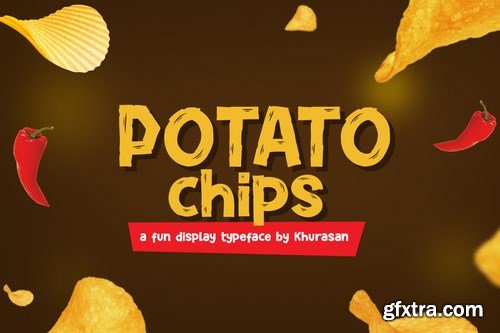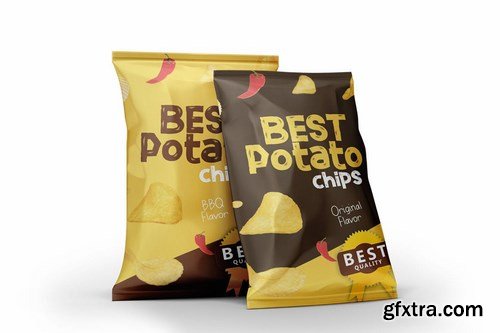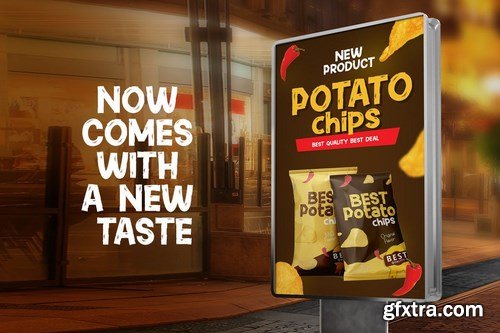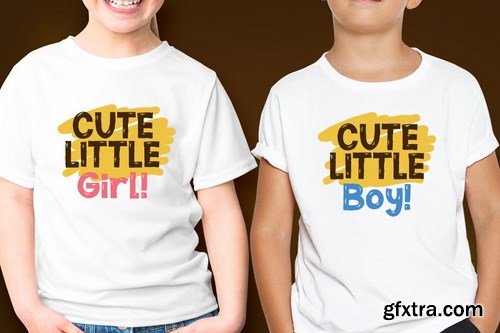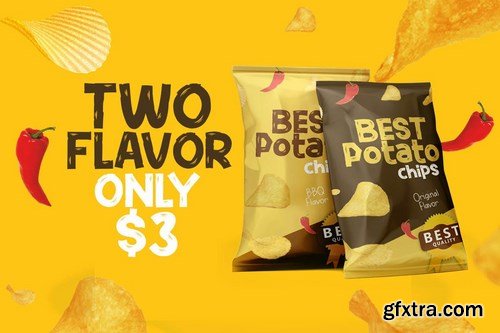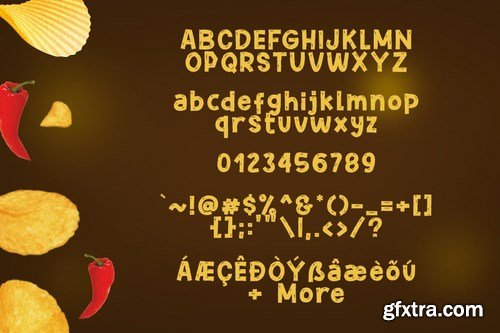
The Potato Chips is a fun display font, fresh & modern style. Potato Chips Font suitable for logo, branding, greeting card, poster and any design that you create.